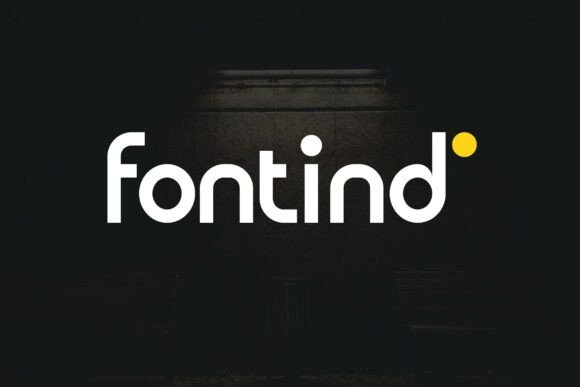
Introducing Fontind Regular Font: The Epitome of Modern Geometric Typography
In the realm of modern typography, the quest for a font that seamlessly blends elegance, versatility, and clarity is a perpetual pursuit. For designers and crafters, the right typeface can elevate a project from mundane to magnificent. This is where Fontind Regular Font comes into play—a contemporary geometric sans serif typeface that embodies the perfect synergy of form and function.
Clean Curves, Minimalist Precision
Fontind is characterized by its clean curves, low contrast, and minimalist precision. These features contribute to its sleek, contemporary aesthetic, making it an ideal choice for projects that demand a modern edge. The font’s design is centered around versatility, ensuring it can adapt to various applications, from branding and tech interfaces to editorial layouts and logo design.
Design Philosophy: Soft Terminals and Monoline Strokes
One of the standout features of Fontind is its combination of soft terminals and monoline strokes. This blend gives the font its unique character, allowing it to convey a sense of friendliness without compromising on structure or legibility. The soft terminals add a touch of warmth, making the font approachable and engaging, while the monoline strokes maintain a level of sophistication and elegance.
Ideal for Various Applications
Fontind’s uniform proportions and rounded forms make it exceptionally versatile. Its design ensures that it remains clear and legible at all sizes, which is crucial for its application in:
- Branding: Create a lasting impression with a font that exudes modernity and professionalism.
- Tech Interfaces: Enhance user experience with a typeface that is both sleek and readable.
- Editorial Layouts: Bring a contemporary flair to magazines, blogs, and digital publications.
- Logo Design: Craft memorable logos that stand out with a unique yet elegant aesthetic.
A Refined Visual Signature
What sets Fontind apart is its distinctive “d” and dot detail, which add a refined visual signature to the font. This subtle nuance not only enhances the font’s aesthetic appeal but also provides an element of uniqueness that can be a deciding factor for designers looking for a typeface with character.
Perfect for Designers Seeking a Bold yet Elegant Voice
For designers and crafters on the lookout for a typeface that can deliver a bold yet elegant voice in modern typography, Fontind Regular Font is an exceptional choice. Its subtle balance between friendliness and structure, combined with its sleek design and versatile application, makes it a valuable asset in any typographic arsenal.
Whether you’re working on a branding project, designing a tech interface, laying out an editorial piece, or crafting a unique logo, Fontind offers the precision, elegance, and adaptability needed to bring your vision to life. With Fontind Regular Font, elevate your design work and make a statement with a typography that speaks volumes.